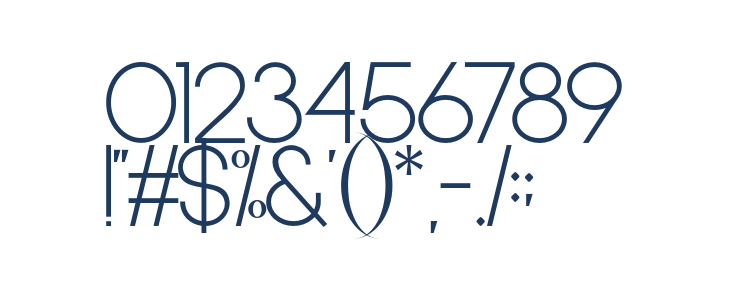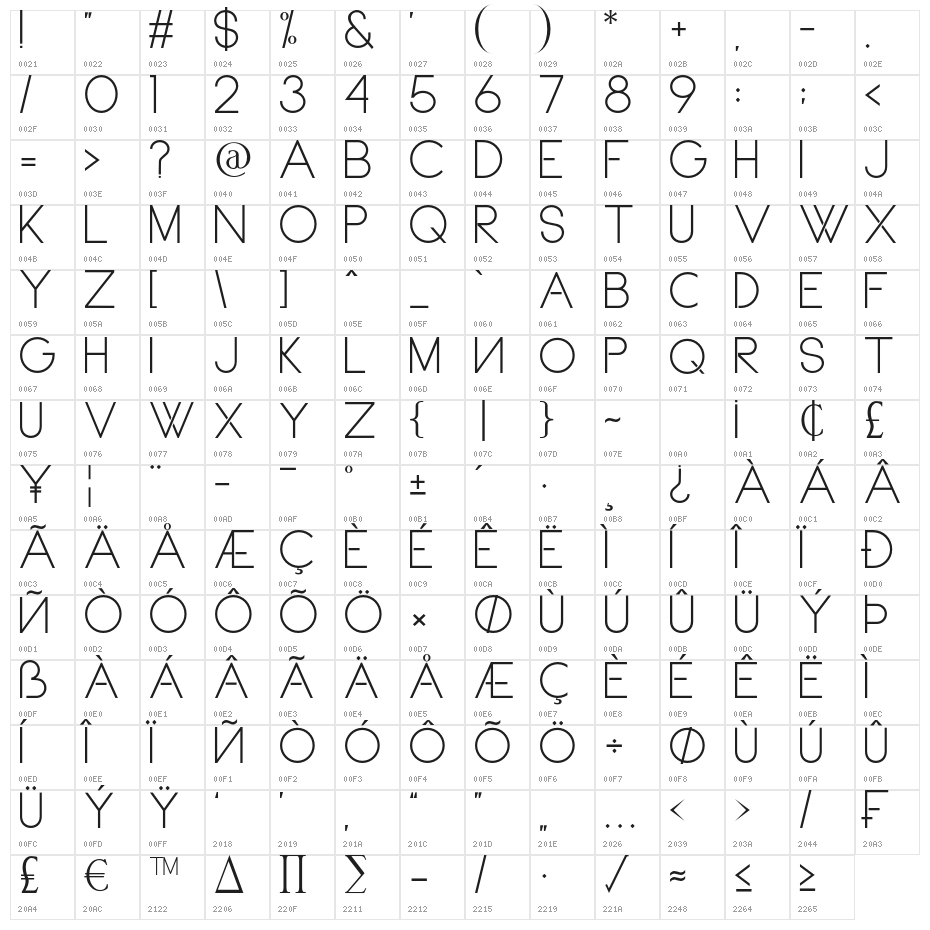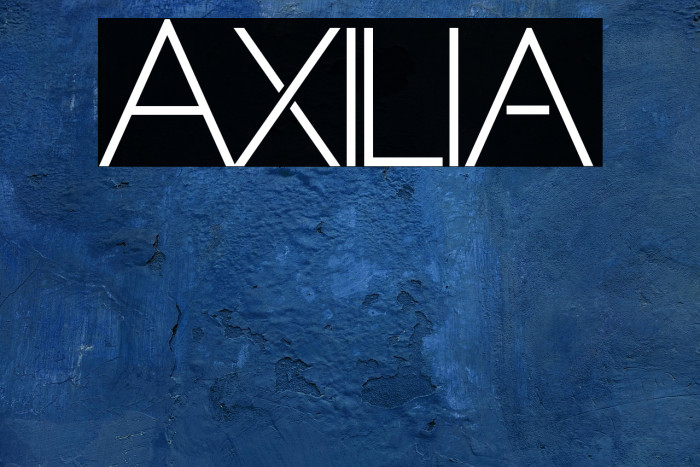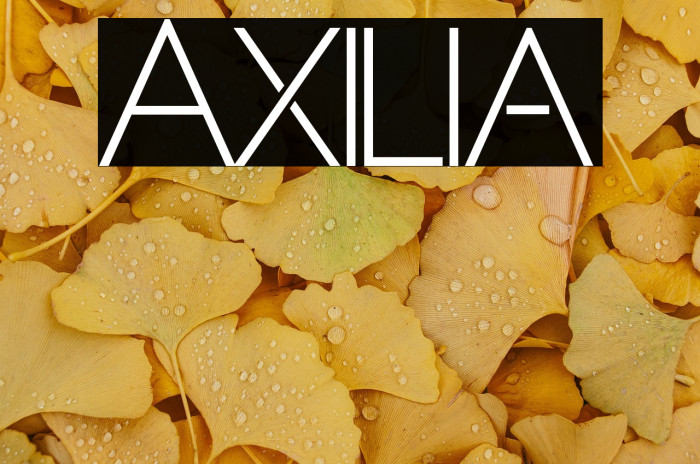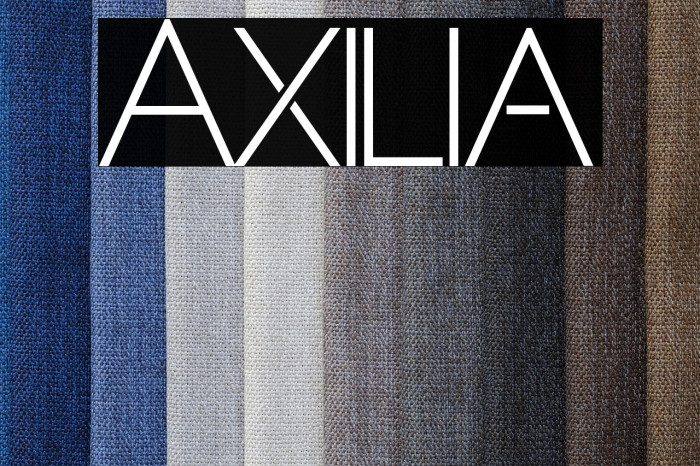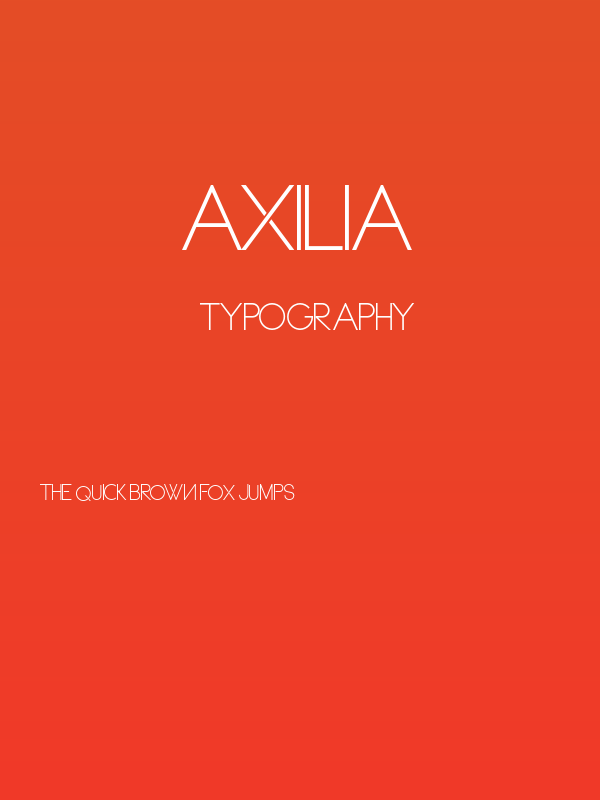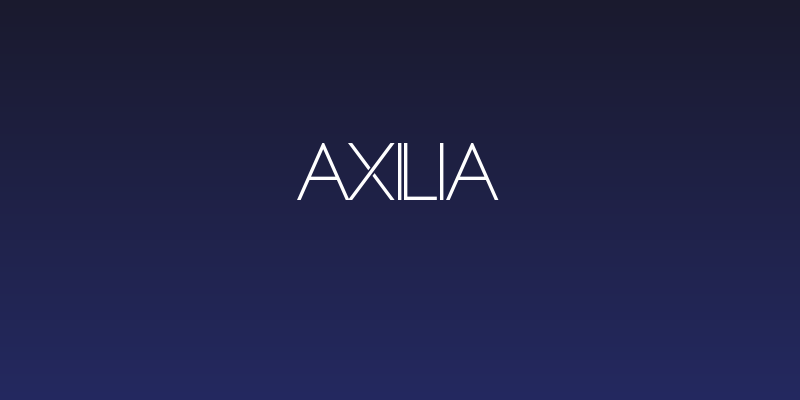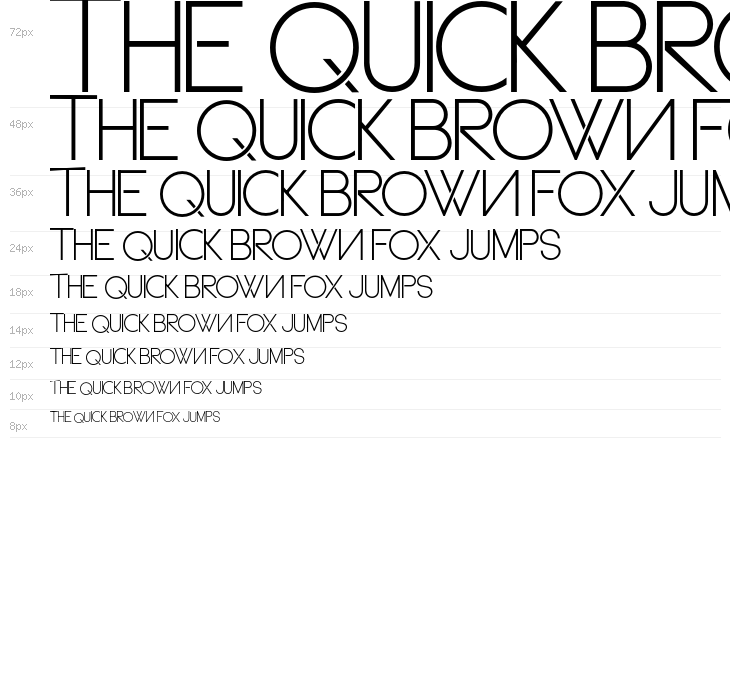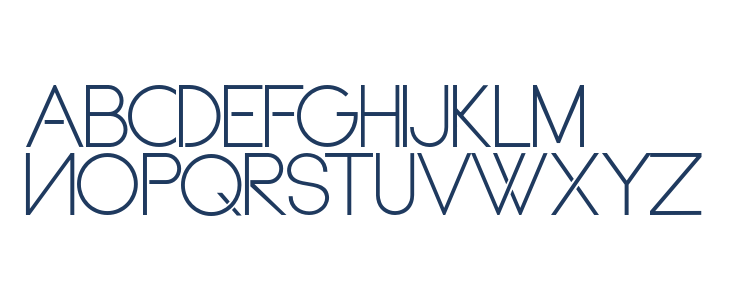
Axilia Font
Axilia Description
This font is a modern, sans-serif typeface characterized by its clean and geometric lines. The uppercase letters are tall and elegant, with a consistent stroke width that gives a uniform appearance. The lowercase letters maintain the same geometric style, providing a harmonious balance between the two cases. The numerals are distinct and easy to read, following the same design principles as the letters. Special characters are well-integrated, maintaining the overall aesthetic. The font's simplicity and clarity make it versatile for various design applications.
| Proposed Projects | Ideal for branding, advertising, web design, and editorial projects where a modern and clean look is desired. |